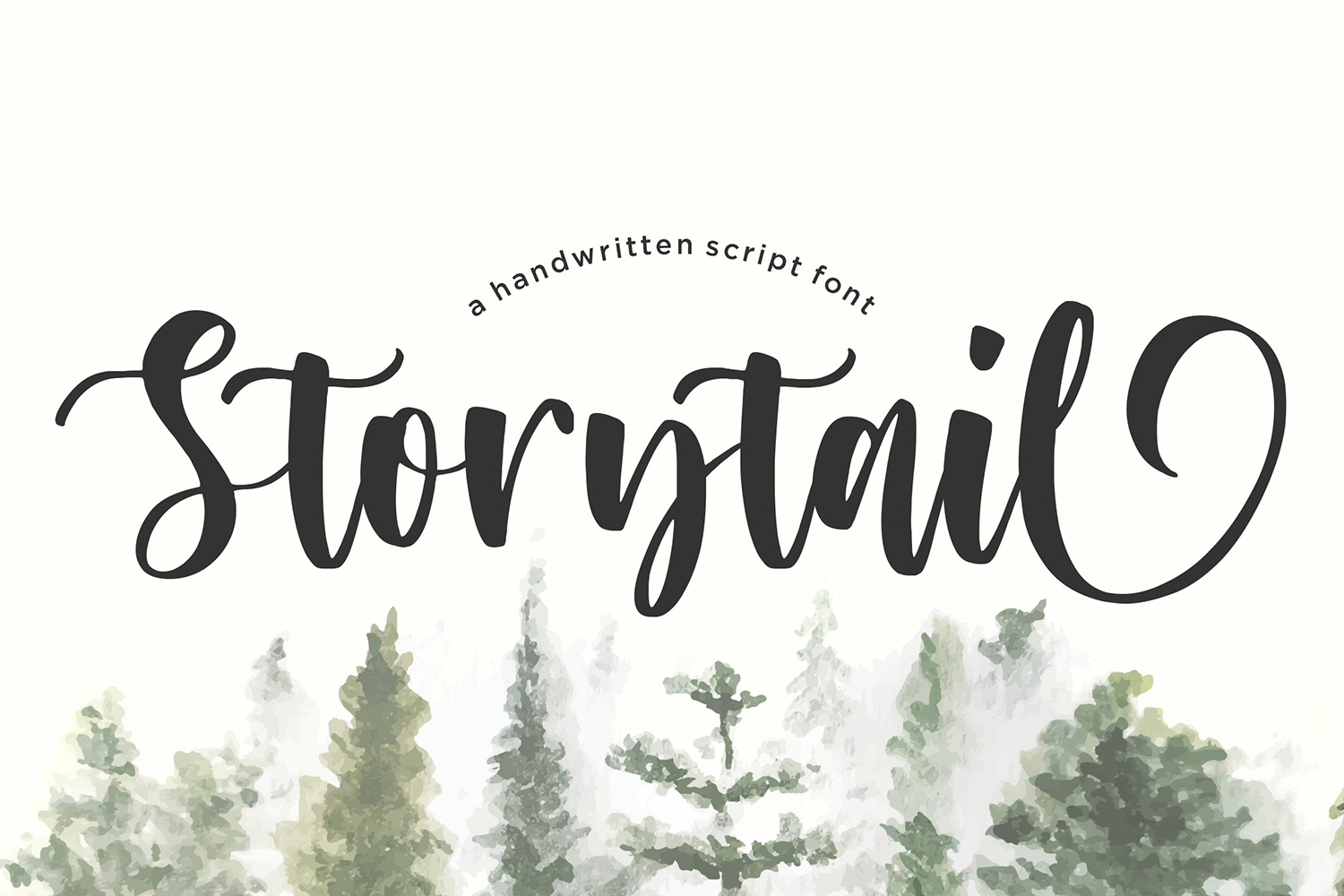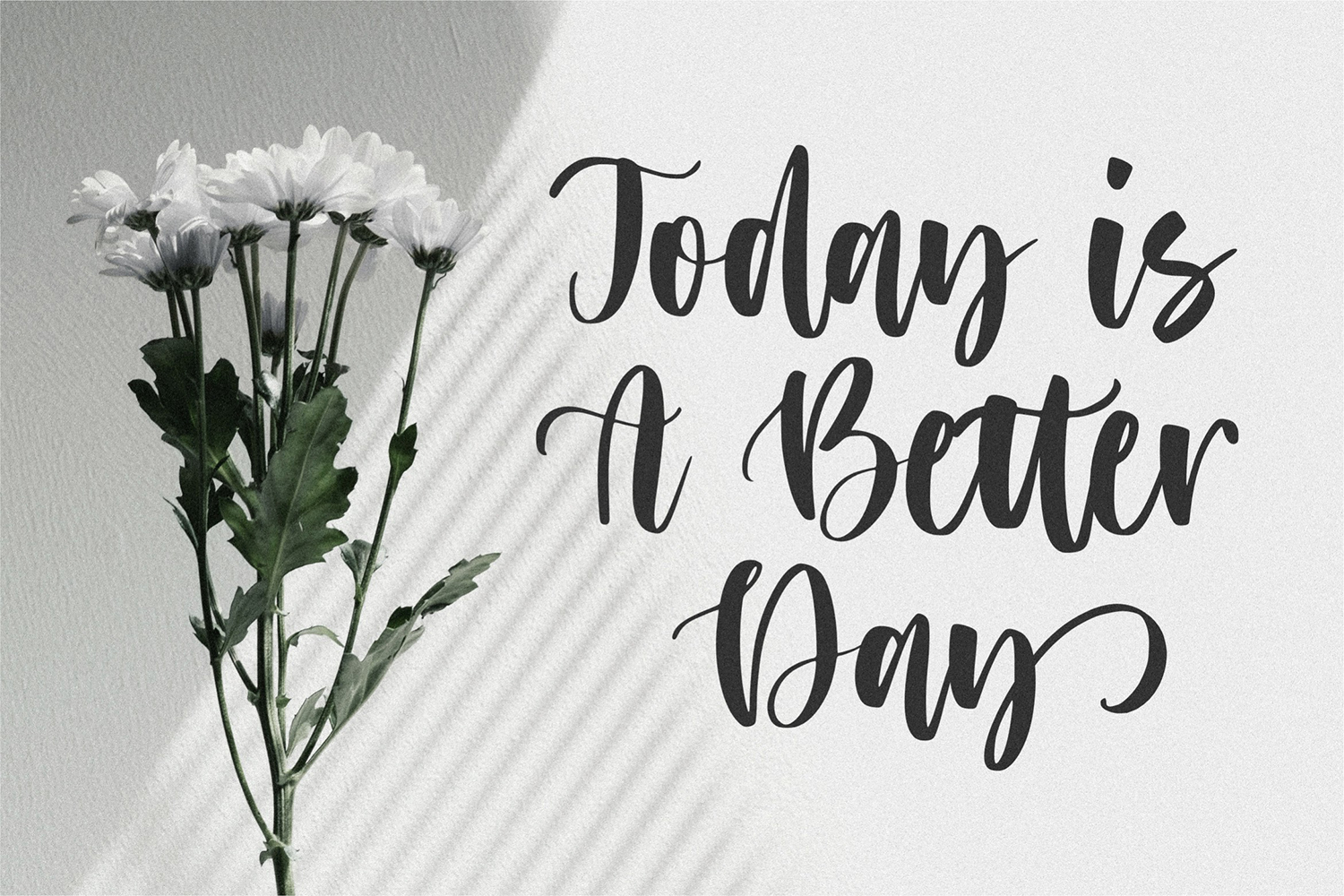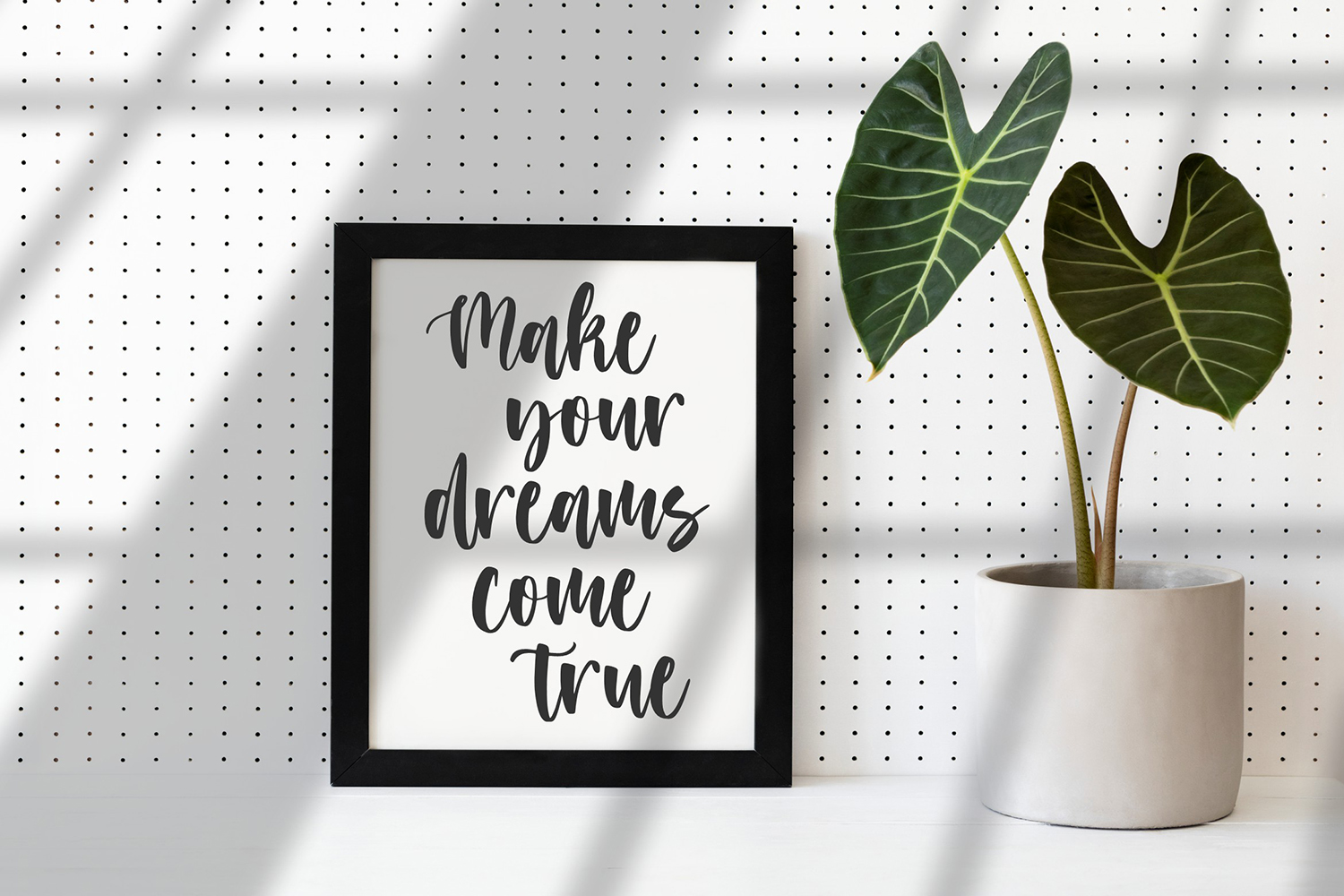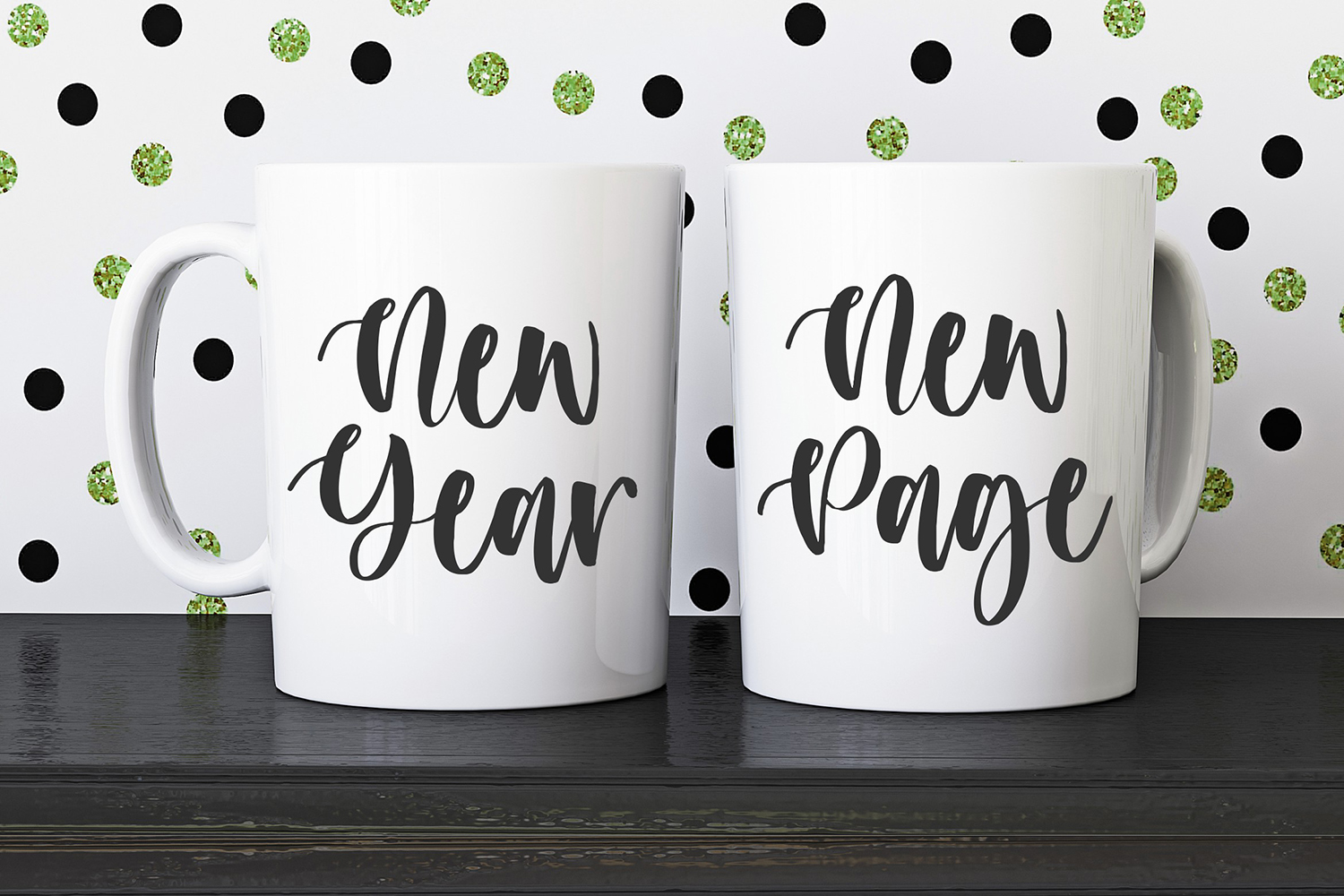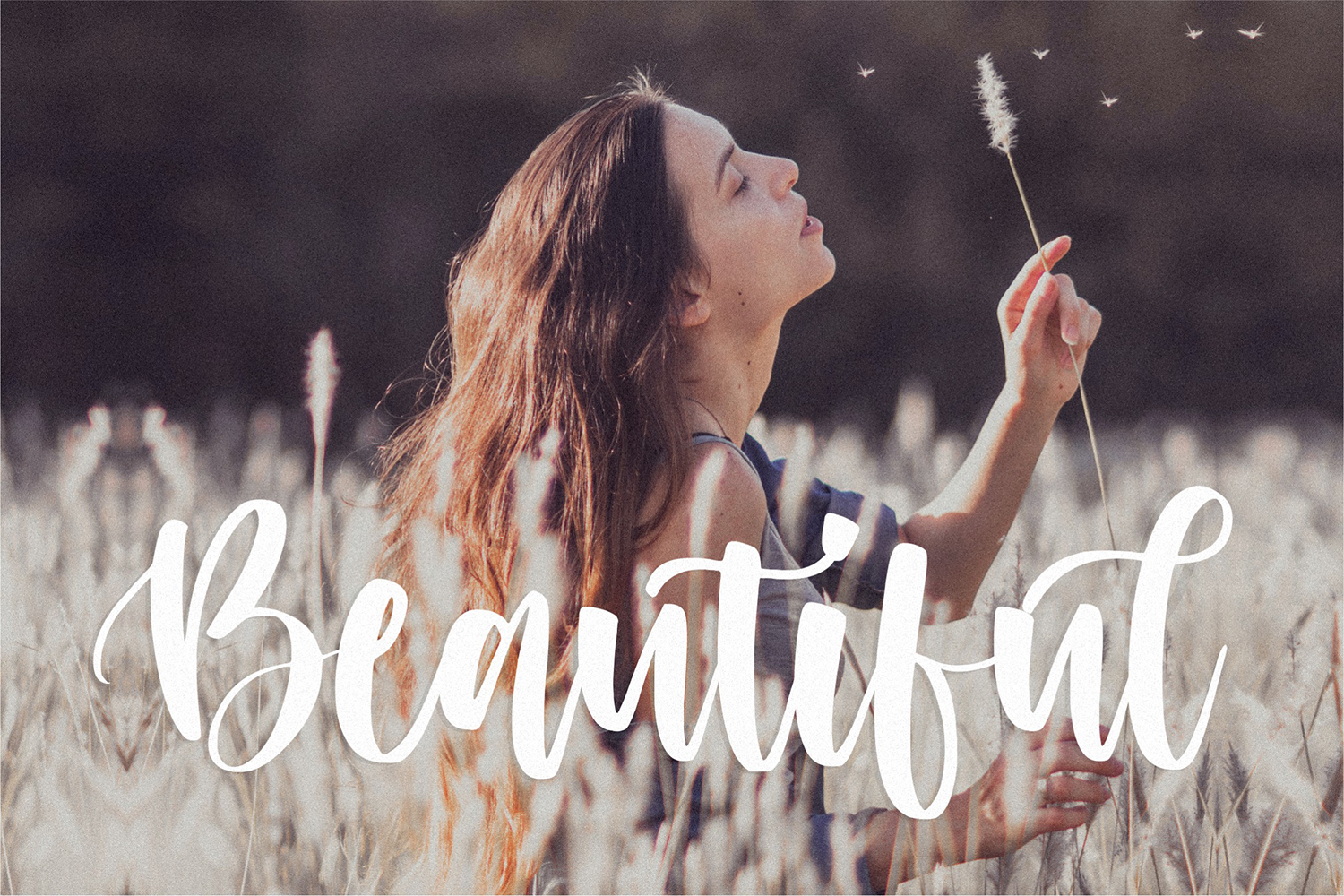
Storytail Free Font
Storytail Free Font is a stylish and delicate script font. This free typeface was designed by a talented Balpirick Studio. If you like it don’t forget to check out the full version.